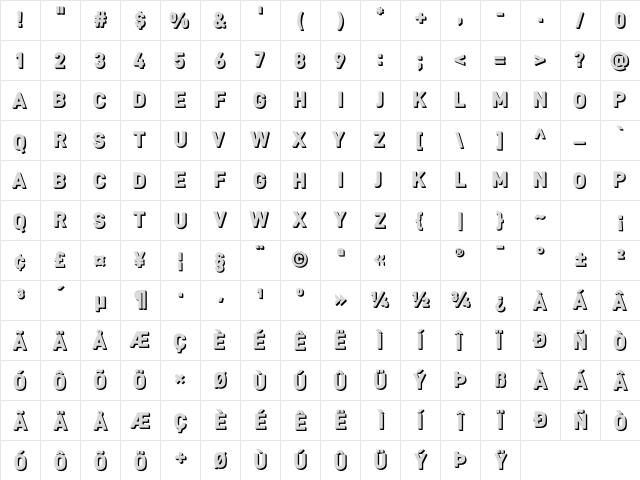
Red Hook Regular
| Designer | Alexandre Noyer |
Design Context for Red Hook Typeface
Red Hook is a composed and adaptable typeface that performs quietly and consistently across a wide range of design contexts.